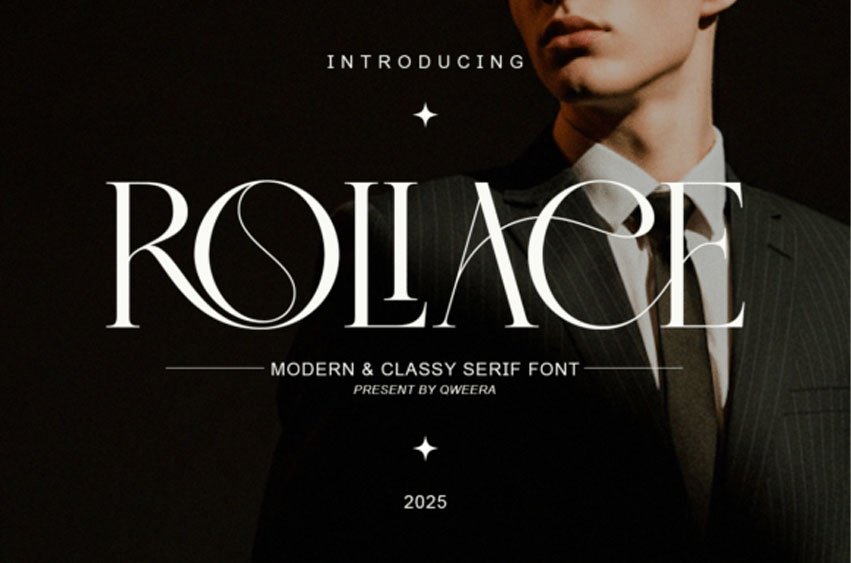
Roliace Font is a modern classy serif typeface featuring refined contrast and elegant structure. Designed for luxury branding and professional editorial layouts, it delivers premium typography with timeless appeal.
Ideal for corporate branding, fashion logos, packaging, and magazine design, Roliace offers sophisticated serif styling with modern flexibility.
Built for designers seeking elegant and professional typography.